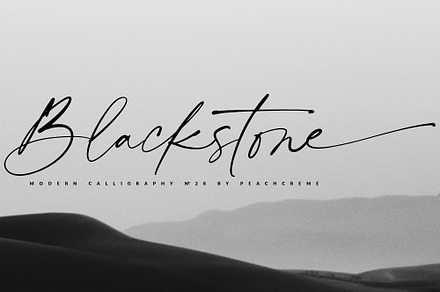
A casual script with a chic finish – relaxed letterforms drawn with enough refinement that the informality reads as deliberate.
The balance between casual and cheap is narrow in script design, and it comes down to how carefully the curves are drawn rather than how loose they look.
- Alternates and ligatures
Put it to work on
- Fashion and beauty branding
- Packaging and label design
- Social and campaign graphics
- Logo and wordmark work